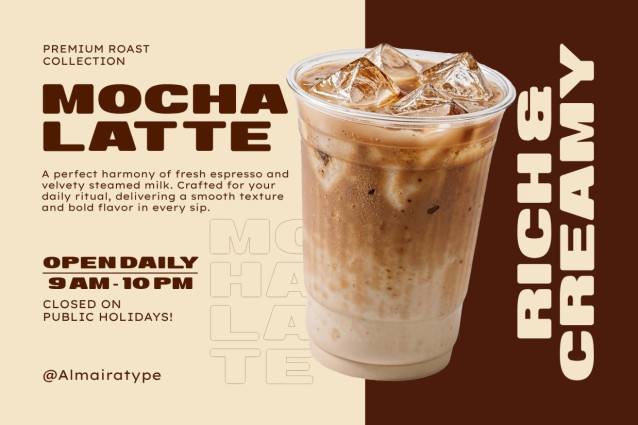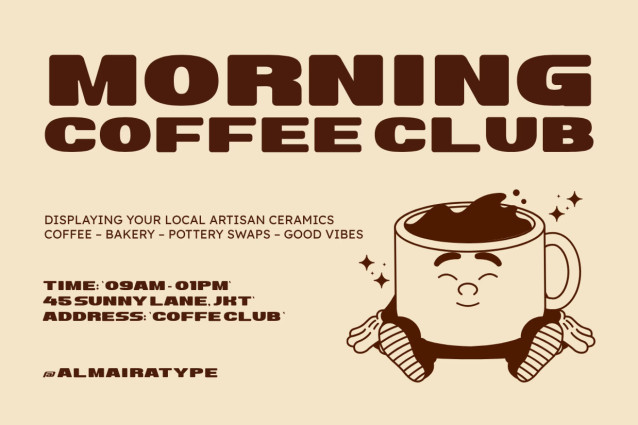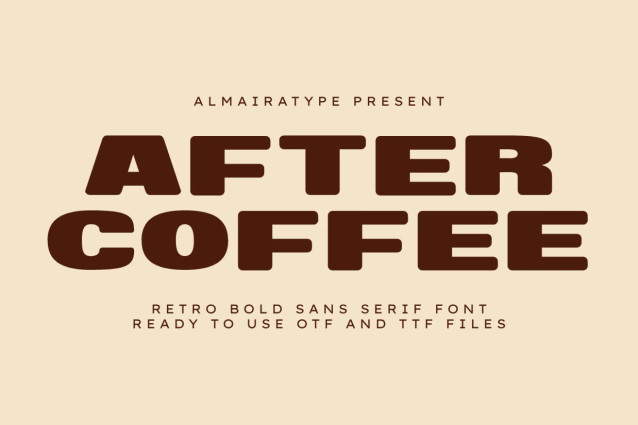
After Coffee Font
After Coffee – Bold Retro Extended Sans Serif Font
Make a bold, commanding, and delightfully nostalgic statement with After Coffee, an ultra-bold retro extended sans serif font engineered for creators who want their headlines to pop with a solid, confident charm. Meticulously structured with a massive display weight, wide blocky baselines, and softly rounded corners, this versatile font brings an instant blend of vintage cafe warmth and clean modern urban professionalism to any creative canvas.
Whether you are an apparel designer launching a fresh streetwear collection, a graphic artist establishing a bold commercial brand, or a high-volume print-on-demand seller optimizing listings for search engine conversions, After Coffee delivers unmatched readability and outstanding shelf appeal. For the crafting community and DIY enthusiasts, every single glyph has been technically polished and vector-optimized to ensure a smooth, effortless cutting and weeding experience on digital cutting machines like Cricut and Silhouette. Bring the powerful, playful, and timeless aesthetic of After Coffee into your commercial design toolkit today!